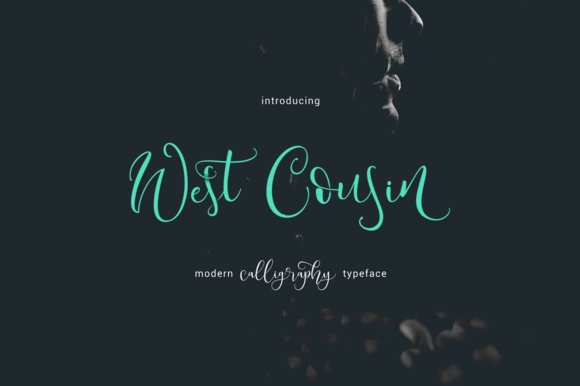
Indulge in the West Cousin Font, a modern calligraphy typeface that will transform your designs into masterpieces of elegance and charm. Crafted by renowned designer Thirtypath, this script font embodies the essence of femininity and sophistication.
With its graceful curves and refined details, West Cousin Font evokes a sense of timeless allure. Each letter dances across the page with a delicate poise, creating a symphony of visual harmony. The result is an upscale and chic aesthetic that elevates any project to new heights of sophistication.
Whether you're crafting captivating logos, alluring invitations, or stunning website designs, West Cousin Font empowers you to make a bold statement. Its versatility knows no bounds, lending itself effortlessly to a myriad of creative endeavors.
With its feminine touch and enchanting charm, West Cousin Font breathes life into your words, transforming them into captivating expressions of art. Its timeless beauty will grace your designs for years to come, leaving an unforgettable impression on all who behold it.
Unleash the power of elegance and allure with West Cousin Font, where every letter becomes a stroke of inspiration. Embrace its enchanting embrace and elevate your designs to the realm of the extraordinary.